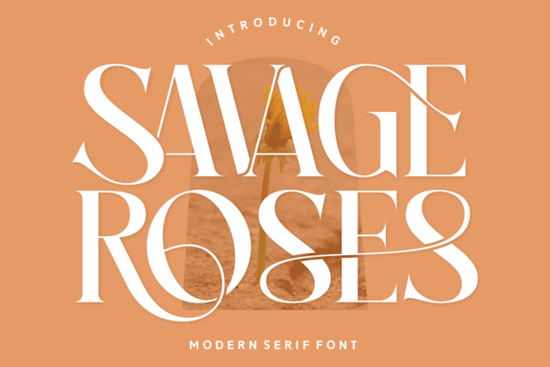
If you're looking for a font that perfectly balances charm, elegance, and boldness, you might want to check out Savage Roses Font. This Serif font is a delightful blend of modern design and romantic sentiments, making it ideal for a variety of creative projects.
Why Choose Savage Roses Font?
Savage Roses is not just another pretty font; it's a versatile and expressive typeface that can add a unique touch to your designs. Whether you're working on wedding invitations, birthday cards, or branding materials, this font brings a cheerful and lively vibe while maintaining its sophistication.
Perfect for Special Occasions
One of the standout features of Savage Roses is its ability to evoke joy and playfulness. This makes it an excellent choice for special occasions like weddings and birthdays. The delicate curls and graceful lines in the font can add a touch of enchantment to your invitations and greeting cards, making them truly memorable.
Versatile and Multilingual
Beyond special occasions, Savage Roses is also highly versatile. It comes in Regular, Italic, and Ligatures, allowing you with a range of styles to choose from. Additionally, the font offers multilingual support, making it accessible to a global audience. This means you can use it for international projects without any limitations.
Ideal for Creative Projects
Crafters and designers will find Savage Roses particularly useful. Its unique features make it perfect for fashion, photography, and book covers. If you're designing trendy t-shirts or creating eye-catching logos, this font will help your words bloom with life. The combination of modern romance and classic elegance sets it apart from other fonts.
Comparing with Other Serif Fonts
While there are many Serif fonts available, Savage Roses stands out with its distinctive character. For instance, if you're considering other options, you might want to compare it with Rofina Font, which has a more traditional feel, or Munnes Font, known for its clean and minimalistic style. Each font has its unique strengths, but Savage Roses offers a blend of charm and versatility that is hard to match.
Using Savage Roses in Your Designs
Incorporating Savage Roses into your designs is straightforward. Here are a few tips to get you started:
- Experiment with Styles: Try using the different styles (Regular, Italic, and Ligatures) to see which one best fits your project.
- Combine with Other Fonts: Pair Savage Roses with a simple sans-serif font like Twinklea Font for a balanced and harmonious look.
- Play with Colors and Textures: Use different colors and textures to enhance the visual appeal of your designs. The delicate curls in Savage Roses can be especially striking when used creatively.
Real-World Applications
To give you a better idea of how you can use Savage Roses, here are some real-world applications:
- Wedding Invitations: Create elegant and romantic invitations that set the tone for a special day.
- Branding Materials: Design sophisticated logos and business cards that leave a lasting impression.
- Book Covers: Craft captivating book covers that draw readers in with their unique and enchanting typography.
- Fashion and Photography: Use the font for fashion labels, photography captions, and social media posts to add a touch of elegance and charm.
Tips for Maximizing the Impact of Savage Roses
To make the most of Savage Roses, consider these practical tips:
- Test Different Sizes: Experiment with various font sizes to find the one that works best for your project. Smaller sizes can be used for subtle details, while larger sizes can make a bold statement.
- Use White Space Wisely: Allow enough white space around the text to make it stand out. This can help in creating a clean and professional look.
- Consider Context: Think about the context in which the font will be used. For example, a romantic and elegant font like Savage Roses might not be the best choice for a corporate report, but it would be perfect for a wedding invitation.
By following these tips, you can effectively use Savage Roses Font to create stunning and memorable designs. Whether you're a designer, crafter, or small business owner, this font is a valuable addition to your toolkit.